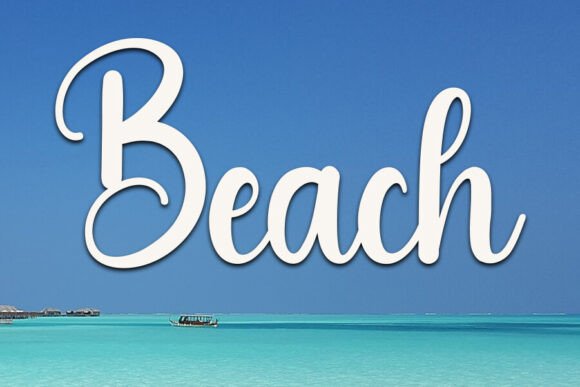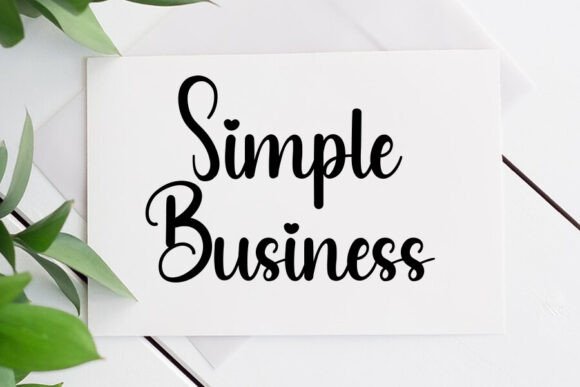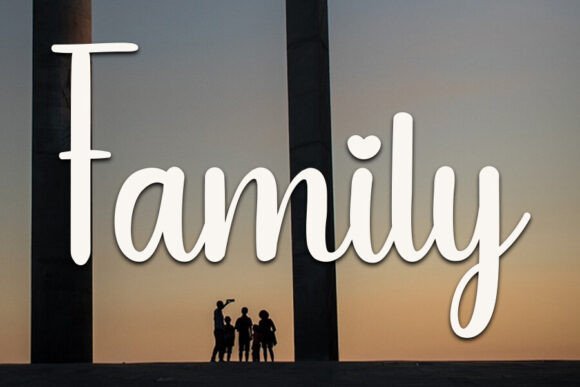
Beside Font
Beside is a simple handwritten font. This versatile font has a wide spectrum of applications ranging from greeting cards to headlines and is guaranteed to add a simple and natural feel to your next project!